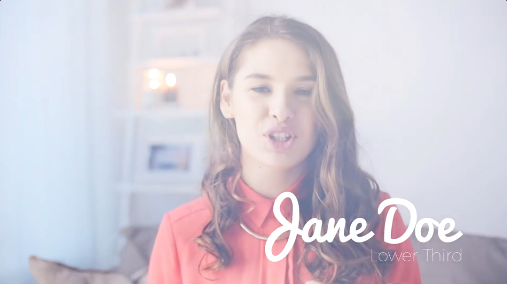
Free Cheer is a creative animated handwriting typeface designed for adding a natural, personal, and expressive handwritten style to video projects. It is suitable for video editors, motion designers, content creators, filmmakers, social media creators, photographers, and designers looking for an organic alternative to standard typography.
Handwritten typography can bring personality and warmth to visual content while creating the feeling of text being written directly on screen. This Free Cheer Animated Handwriting Typeface can be used to introduce titles, messages, captions, quotes, names, notes, and other text elements with a creative hand-drawn appearance.
The typeface is particularly useful for social media content, promotional videos, lifestyle projects, wedding videos, travel content, personal stories, creative presentations, and visual storytelling. Its handwritten character can complement footage and graphics without making the typography feel overly formal.
YouTube creators can use the Free Cheer typeface for video titles, intros, quotes, annotations, storytelling sequences, tutorials, vlogs, announcements, and creative overlays. Animated handwriting can add a more personal visual identity to channel content.
For Instagram, TikTok, Facebook, YouTube Shorts, and other social media platforms, the animated handwriting style can be used for captions, motivational messages, promotional text, announcements, quotes, product content, lifestyle videos, and short-form storytelling.
Wedding photographers and filmmakers can use Free Cheer for wedding invitations, save-the-date videos, couple names, romantic messages, anniversary videos, wedding highlights, photo slideshows, and celebration content. The handwritten appearance can complement personal and emotional visual projects.
Travel and lifestyle creators can use the animated typeface for destination names, location captions, travel notes, memories, diary-style videos, vacation montages, and personal storytelling. The writing-inspired design can help create a casual and authentic presentation.
Businesses and creative brands can also use the Free Cheer Animated Handwriting Typeface for advertisements, promotional campaigns, product videos, packaging-inspired visuals, social media marketing, brand stories, and lifestyle campaigns. It can add a more approachable character to branded content.
The typeface can also work well with photography, fashion, beauty, food, craft, DIY, education, and creative content. Combining handwritten animation with photographs, illustrations, video footage, textures, music, and other graphic elements can create a distinctive visual style.
You can customize the text and integrate your own words, names, messages, colors, branding, video footage, images, music, and sound effects according to your project requirements. This flexibility allows the animated handwriting to fit different themes and creative directions.
Freelancers, agencies, motion designers, and professional video editors can use the Free Cheer typeface as a reusable typography element for client projects. It can be incorporated into promotional videos, social media campaigns, event content, title sequences, advertisements, and creative presentations.
Whether you're creating a wedding video, YouTube intro, social media reel, travel story, lifestyle campaign, promotional video, quote animation, or creative presentation, this Free Cheer Animated Handwriting Typeface provides a natural and expressive way to bring handwritten typography into your video projects.
Handwritten typography can bring personality and warmth to visual content while creating the feeling of text being written directly on screen. This Free Cheer Animated Handwriting Typeface can be used to introduce titles, messages, captions, quotes, names, notes, and other text elements with a creative hand-drawn appearance.
The typeface is particularly useful for social media content, promotional videos, lifestyle projects, wedding videos, travel content, personal stories, creative presentations, and visual storytelling. Its handwritten character can complement footage and graphics without making the typography feel overly formal.
YouTube creators can use the Free Cheer typeface for video titles, intros, quotes, annotations, storytelling sequences, tutorials, vlogs, announcements, and creative overlays. Animated handwriting can add a more personal visual identity to channel content.
For Instagram, TikTok, Facebook, YouTube Shorts, and other social media platforms, the animated handwriting style can be used for captions, motivational messages, promotional text, announcements, quotes, product content, lifestyle videos, and short-form storytelling.
Wedding photographers and filmmakers can use Free Cheer for wedding invitations, save-the-date videos, couple names, romantic messages, anniversary videos, wedding highlights, photo slideshows, and celebration content. The handwritten appearance can complement personal and emotional visual projects.
Travel and lifestyle creators can use the animated typeface for destination names, location captions, travel notes, memories, diary-style videos, vacation montages, and personal storytelling. The writing-inspired design can help create a casual and authentic presentation.
Businesses and creative brands can also use the Free Cheer Animated Handwriting Typeface for advertisements, promotional campaigns, product videos, packaging-inspired visuals, social media marketing, brand stories, and lifestyle campaigns. It can add a more approachable character to branded content.
The typeface can also work well with photography, fashion, beauty, food, craft, DIY, education, and creative content. Combining handwritten animation with photographs, illustrations, video footage, textures, music, and other graphic elements can create a distinctive visual style.
You can customize the text and integrate your own words, names, messages, colors, branding, video footage, images, music, and sound effects according to your project requirements. This flexibility allows the animated handwriting to fit different themes and creative directions.
Freelancers, agencies, motion designers, and professional video editors can use the Free Cheer typeface as a reusable typography element for client projects. It can be incorporated into promotional videos, social media campaigns, event content, title sequences, advertisements, and creative presentations.
Whether you're creating a wedding video, YouTube intro, social media reel, travel story, lifestyle campaign, promotional video, quote animation, or creative presentation, this Free Cheer Animated Handwriting Typeface provides a natural and expressive way to bring handwritten typography into your video projects.